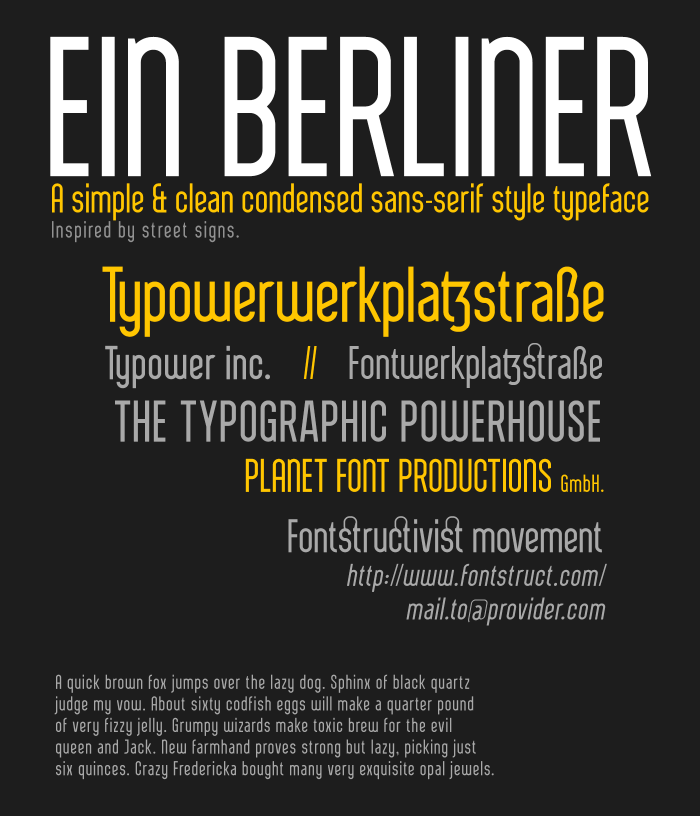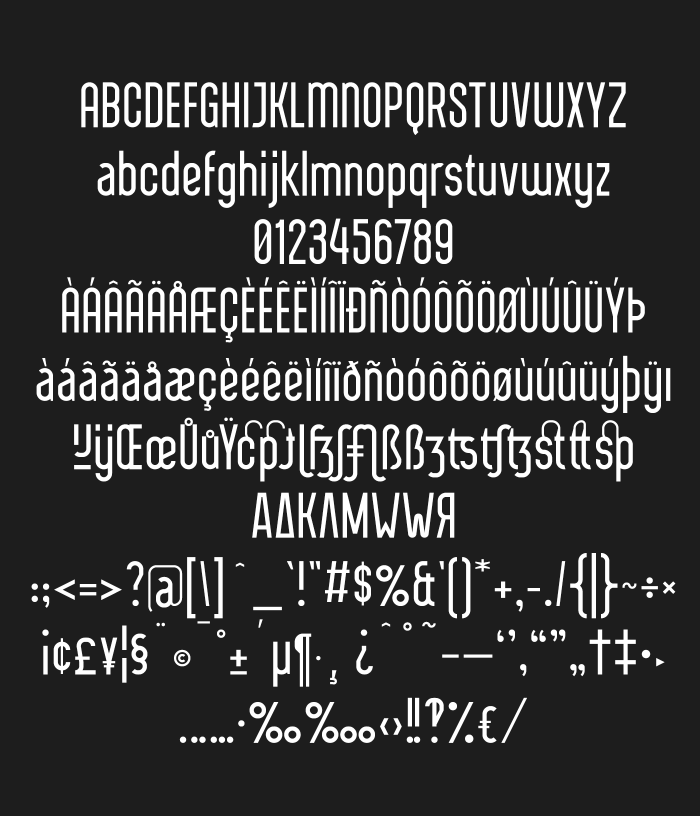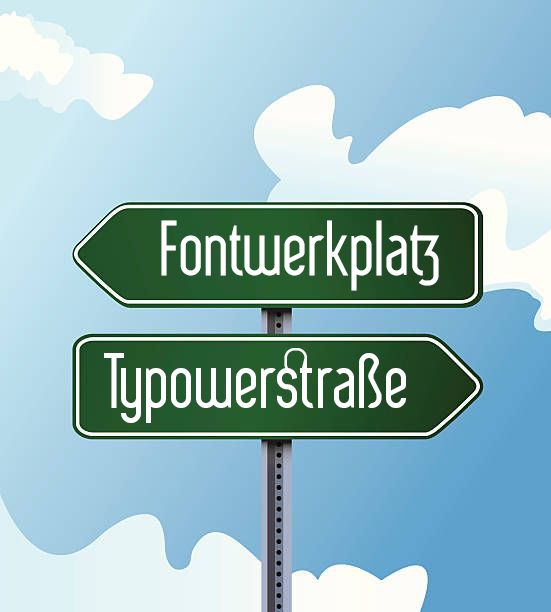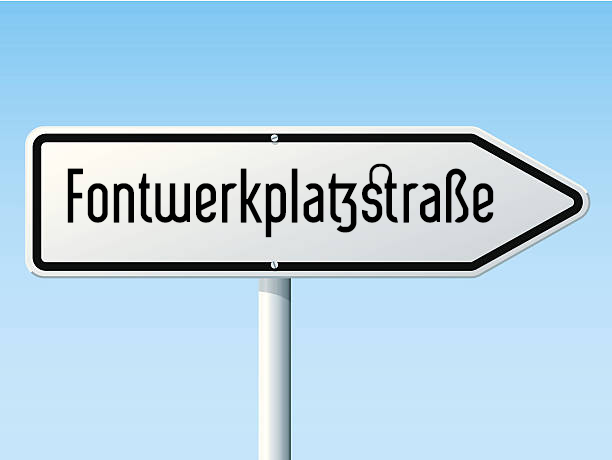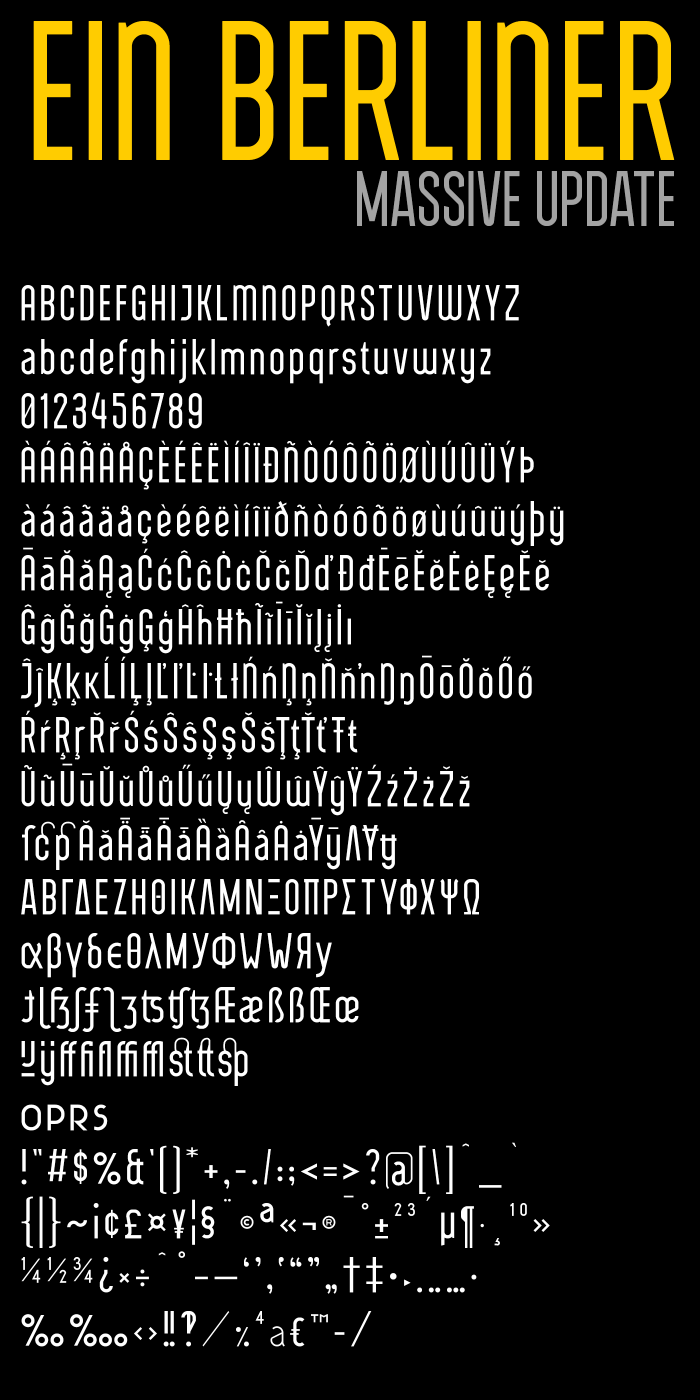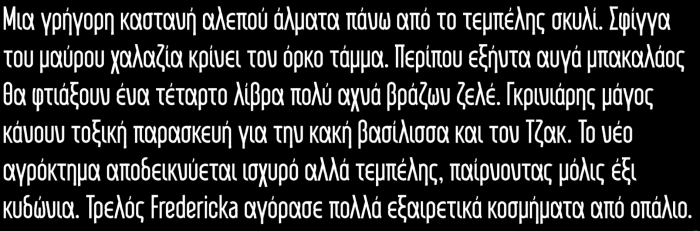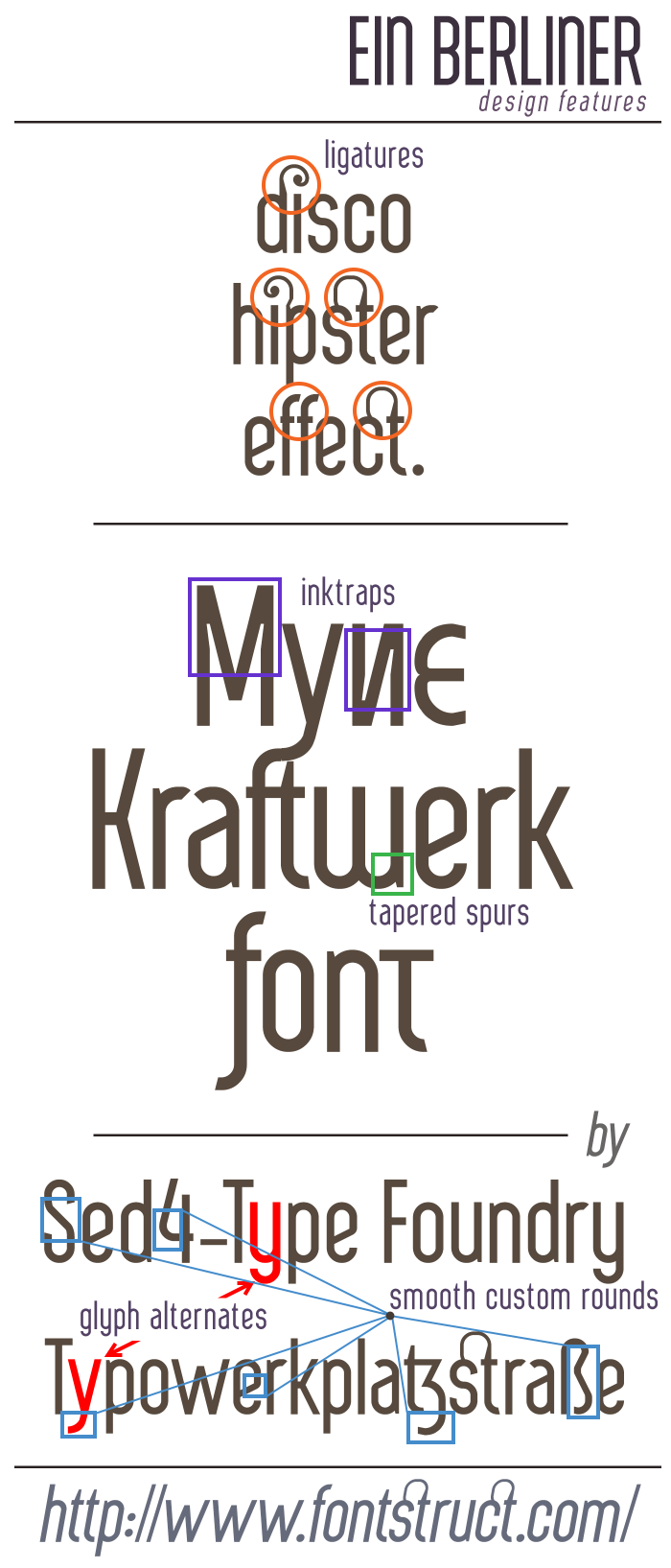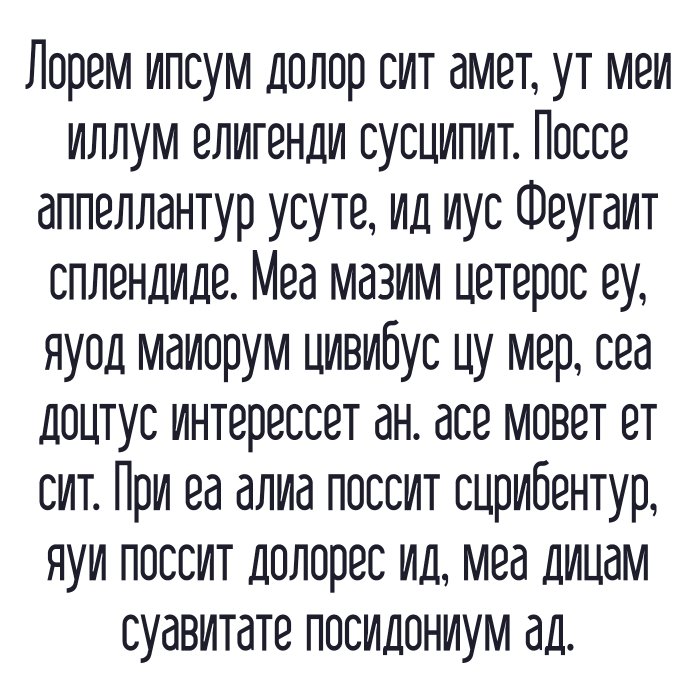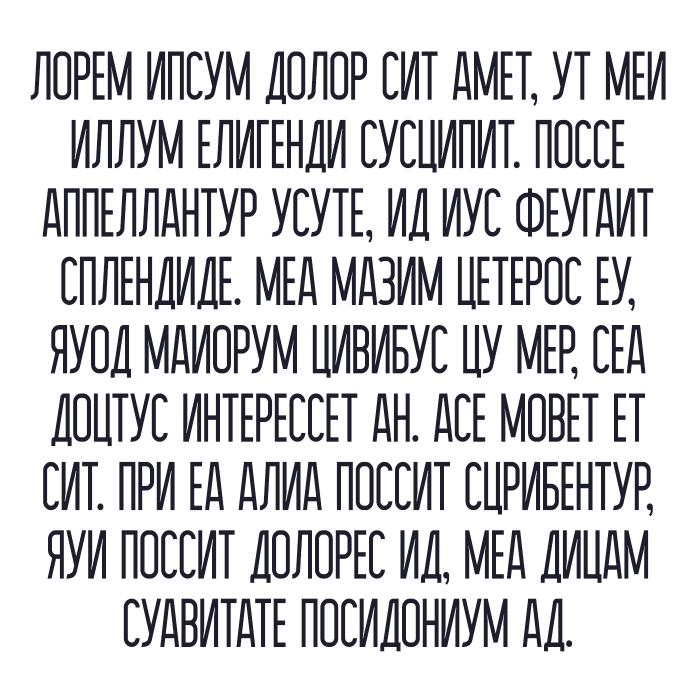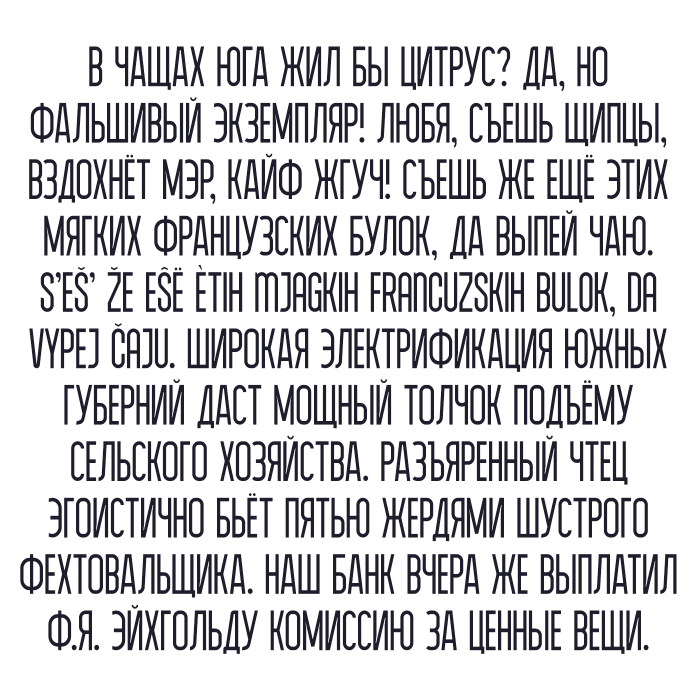
UPDATE:
Started adding language support for Greek and Coptic, maybe I will add cyrillic as well when I completed this.
MASSIVE UPDATE:
• Completed Latin-1 supplement
• Completed Latin extended-A
• Partial Latin extended-B done (more next update!)
• Included most combining diacritical marks
• Included most standard ligatures
• Included new discretionary ligatures
• Various random other characters & symbols added
UPDATE:
Completed the full basic Greek and Coptic unicode
I also would like to ask any of you with knowledge on the Greek language / alphabet to  please let me know if my attempt is anywhere near legit in its overall design and kerning. I have very little knowledge in regard to the Greek language, so any help or guidance would be greatly appreciated. I will post a sample image in the next comment.
UPDATE: Added (partial) Cyrillic alphabet for full basic Russian language support (i hope).
Since I'm a complete novice when it comes to Cyrillic language I'd like to ask any of you Russian speaking FontStructors like Dmitriy Sychiov (Sychoff) or TH3_C0N-MAN for your opinion about my attempt so far.
Perhaps either of you could also let me know If I forgot any important character for the support of basic Russian language.
(New sample images posted above)
Cyrillic looks pretty good, although Ґ and ґ could added for the Ukranian language…
There is way too much space between the vertical stroke of “Ю” and its bowl (capital and lower-case). I can see that you’ve put a lot of thought into it, but “Д” and “д” are a little bit too skinny to me. Also, normally the descender of “ф” would be the size of the one on “р” with the top one to match.
But other than that, expertly done! It’s very readable for a FontStruction. And I’ve always likes condensed fonts. Hmm… it’s got me thinking, maybe I should try to make one as readable as possible next.
I'm very surprised to see that I had done things appropriate for such a major portion of the character set. I revisited everything you pointed out and corrected / adjusted these glyphs.
“Hmm… it’s got me thinking, maybe I should try to make one as readable as possible next”
Cool. Loox good now. I can tell that you’ve spent some time studying the Cyrillic forms.
Another thing to note is that “Д” would normally have the same upper left point as “Л”, but that’s just getting picky. Also, I just wanna point out you’ve spelt “Spanisch” in your description.
@TCM I see it in the description too…
You’re still at it! I’ve had a full day’s work and come back to find another great sample. I’d say that this is your best so far.
@Sed4tives: Very cool. But I must add that the more open forms (aperture) of З Э - not right - it makes no sense to differ from C. And the arm of these letters can be shortened. I also noticed that you made the font with almost no optical compensation. This font would be good in a high waist (as in the Latin letters E H, as well as for Б Ь Ъ Ы in Cyrillic).
It is not necessary to round a left-down-serif д, but the rounding of the letter itself is suitable here, this is a cool solution. Another important mistake with ф is that it is too narrow.
I saw a bar going through capital Es. And why is capital Ef wider than lowercase Ef?